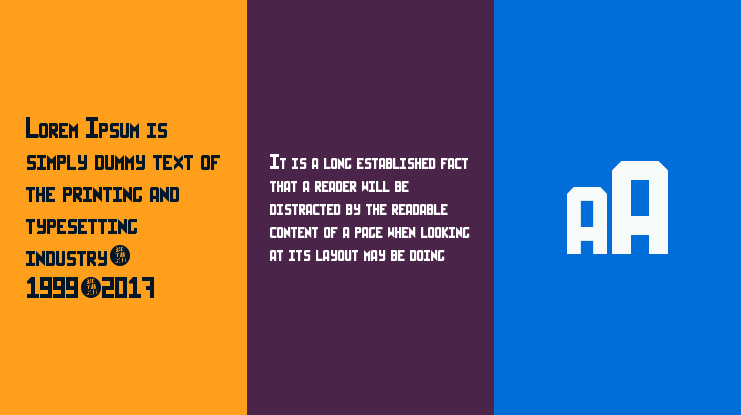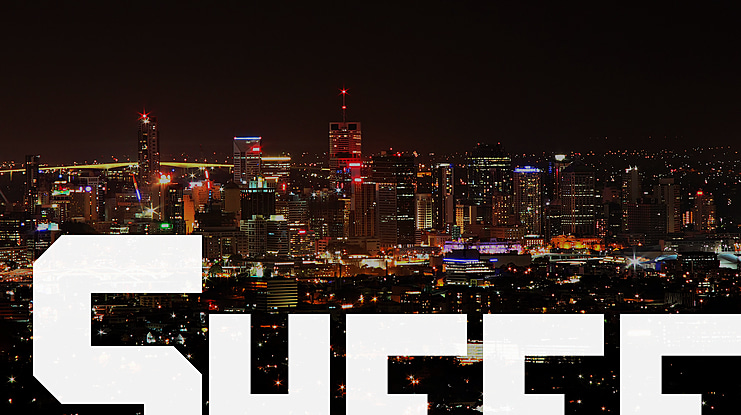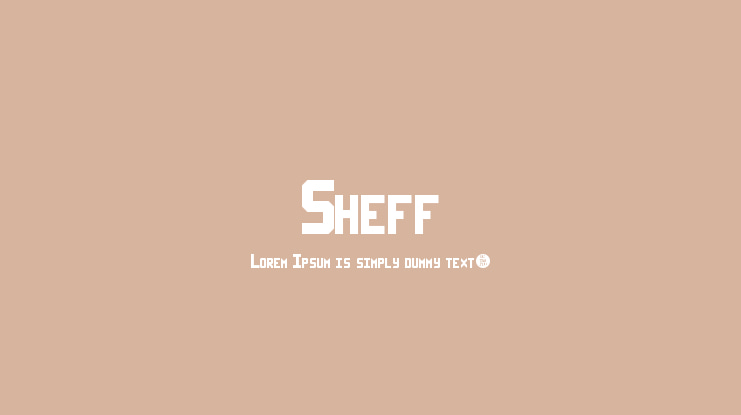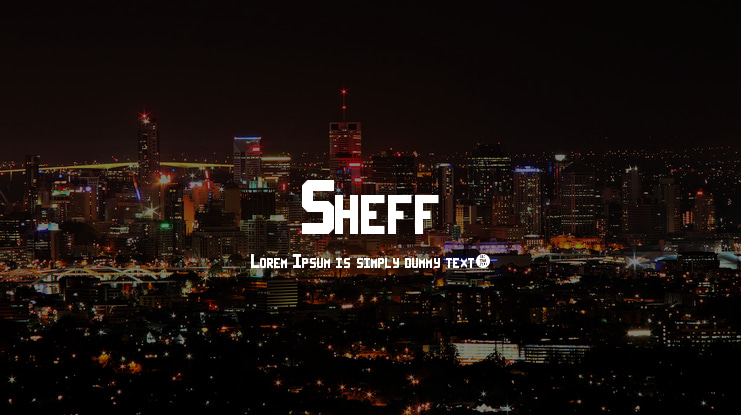
Sheff Font Family
A typeface made by Tom Booth//BadTown.co.uk. Created during a project on my favourite city, Sheffield. Inspired by the steel industry there and the construction that can follow with it.